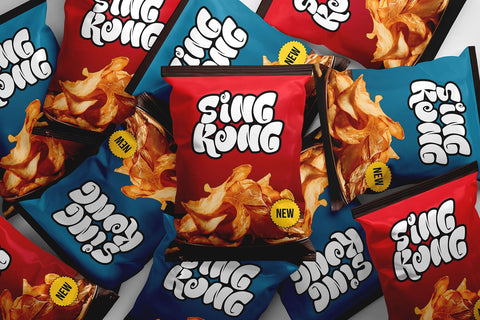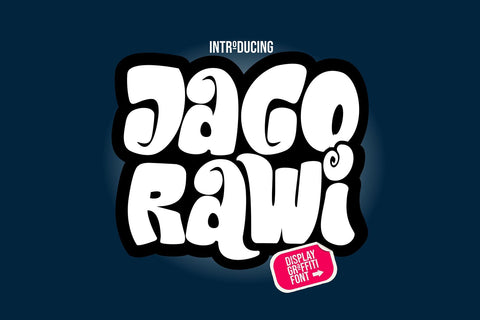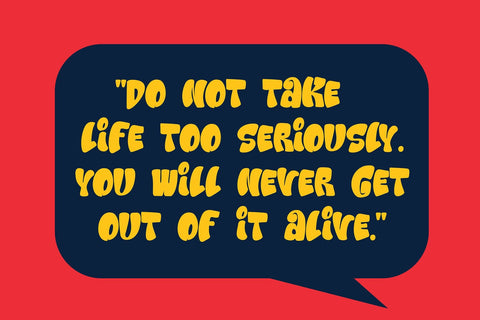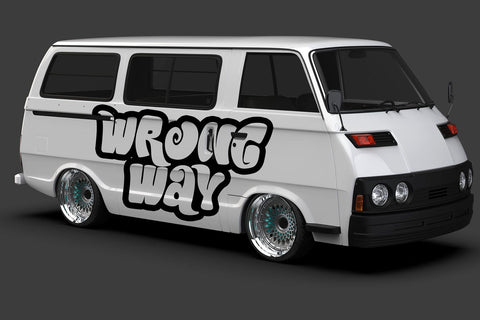
Jago Rawi - Display Graffiti Font
Jago Rawi is a unique display font with a graffiti style. This font adds an urban and edgy vibe to your designs, making it perfect for streetwear, posters, album covers, and any project that requires a bold and distinctive look. Its creative and dynamic characters bring a touch of street art to your work, ensuring your designs stand out.